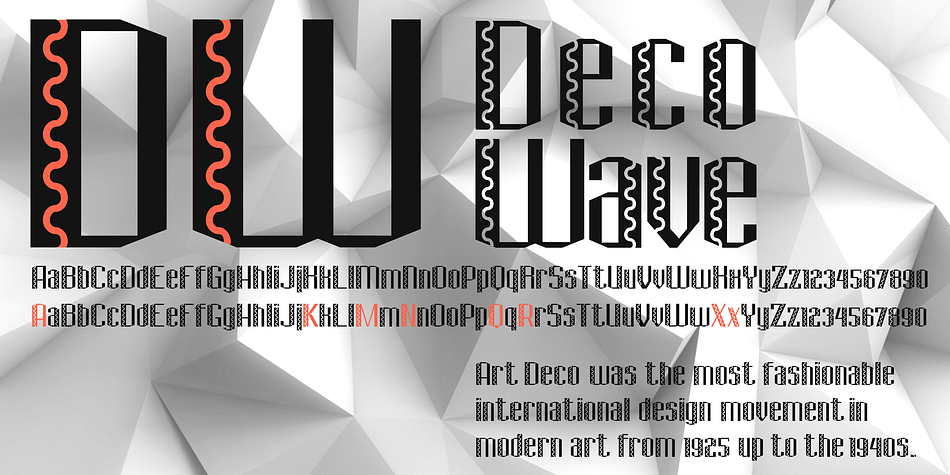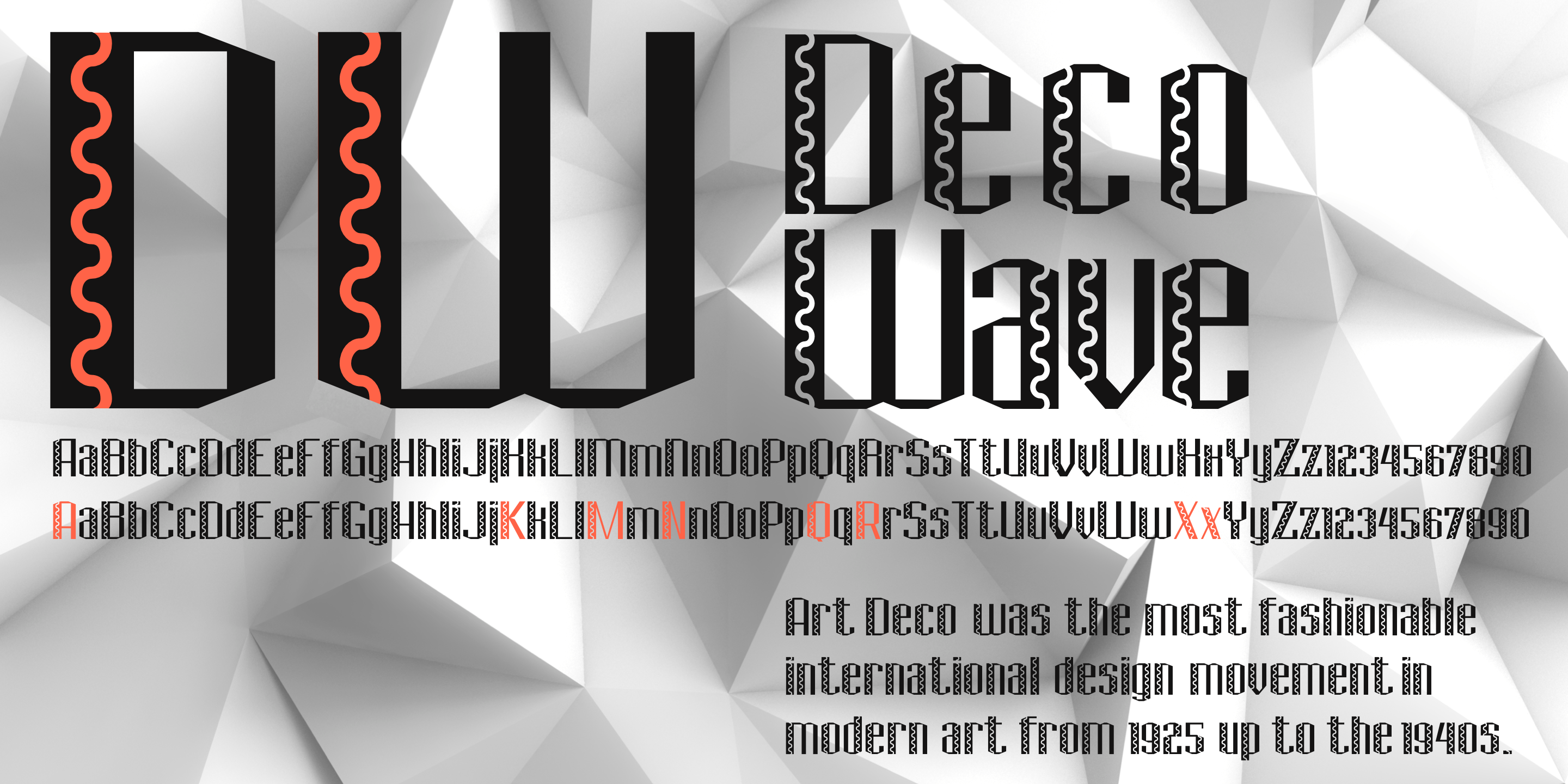
Deco Wave
Designed by Ann Pomeroy, Deco Wave is a display, display sans and novelty font published by FontHaus.
The design of the font Deco Wave is based on the look and feel of Art Deco design, an infuential visual arts design that first appeared in France before WW I and flourished internationally in the 1920s, 30s, and 40s.